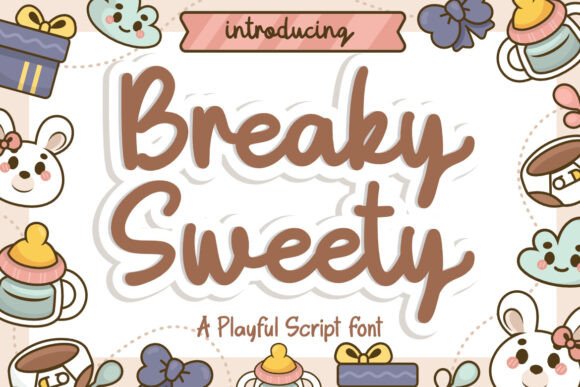
Introducing Breaky Sweety: A Playful Script Font for Creative Minds
Are you on the hunt for a font that can add a touch of playfulness and whimsy to your designs? Look no further than Breaky Sweety, a premium script font that’s perfect for crafters, designers, and anyone looking to add some personality to their work. In this article, we’ll dive into the world of Breaky Sweety, exploring its features, uses, and benefits, as well as provide tips and inspiration for incorporating this delightful font into your creative projects.
What is Breaky Sweety?
Breaky Sweety is a high-quality, premium script font designed to bring a smile to your face. With its playful, cursive strokes and charming character set, this font is perfect for adding a touch of sweetness to any design. Whether you’re working on a flyer, poster, banner, or merchandise, Breaky Sweety is the perfect choice for anyone looking to create something fun, fresh, and eye-catching.
Key Features of Breaky Sweety
- Playful Script Font: Breaky Sweety is a script font with a playful twist, featuring cursive strokes and a carefree vibe.
- High Premium Quality: This font is crafted with attention to detail and a high level of quality, ensuring it looks great in any design.
- Versatile: Breaky Sweety can be used for a wide range of projects, from flyers and posters to packaging and merchandise.
- Easy to Read: Despite its playful nature, Breaky Sweety is easy to read, making it perfect for use in quotes, titles, and headings.
Uses for Breaky Sweety
So, what can you use Breaky Sweety for? The possibilities are endless! Here are some ideas to get you started:
- Flyers and Brochures: Add a touch of whimsy to your marketing materials with Breaky Sweety.
- Posters and Banners: Create eye-catching posters and banners with this playful font.
- Packaging: Use Breaky Sweety to add a personal touch to your product packaging.
- Merchandise: Create fun and quirky merchandise, such as t-shirts, mugs, and tote bags, with Breaky Sweety.
- Logotypes: Use Breaky Sweety to create a unique and memorable logo for your brand.
Tips for Using Breaky Sweety
Here are some tips for getting the most out of Breaky Sweety:
- Experiment with Colors: Breaky Sweety looks great in a range of colors, so don’t be afraid to experiment and find the perfect hue for your design.
- Mix and Match: Combine Breaky Sweety with other fonts to create a unique and interesting contrast.
- Keep it Simple: Don’t overcomplicate your design – Breaky Sweety is perfect for simple, yet effective designs.
Inspiration for Your Next Project
Need some inspiration for your next project? Here are a few ideas to get you started:
- Create a Whimsical Poster: Use Breaky Sweety to create a playful poster for a children’s event or a fun social media campaign.
- Design a Custom Mug: Add a touch of personality to a custom mug with Breaky Sweety.
- Develop a Brand Identity: Use Breaky Sweety to create a unique and memorable brand identity for a new business or product.
Breaky Sweety is a playful script font that’s perfect for designers, crafters, and anyone looking to add some personality to their work. With its high premium quality, versatility, and ease of use, this font is sure to become a favorite in your design toolkit. So why not give Breaky Sweety a try and see how it can bring a touch of whimsy and fun to your next project?